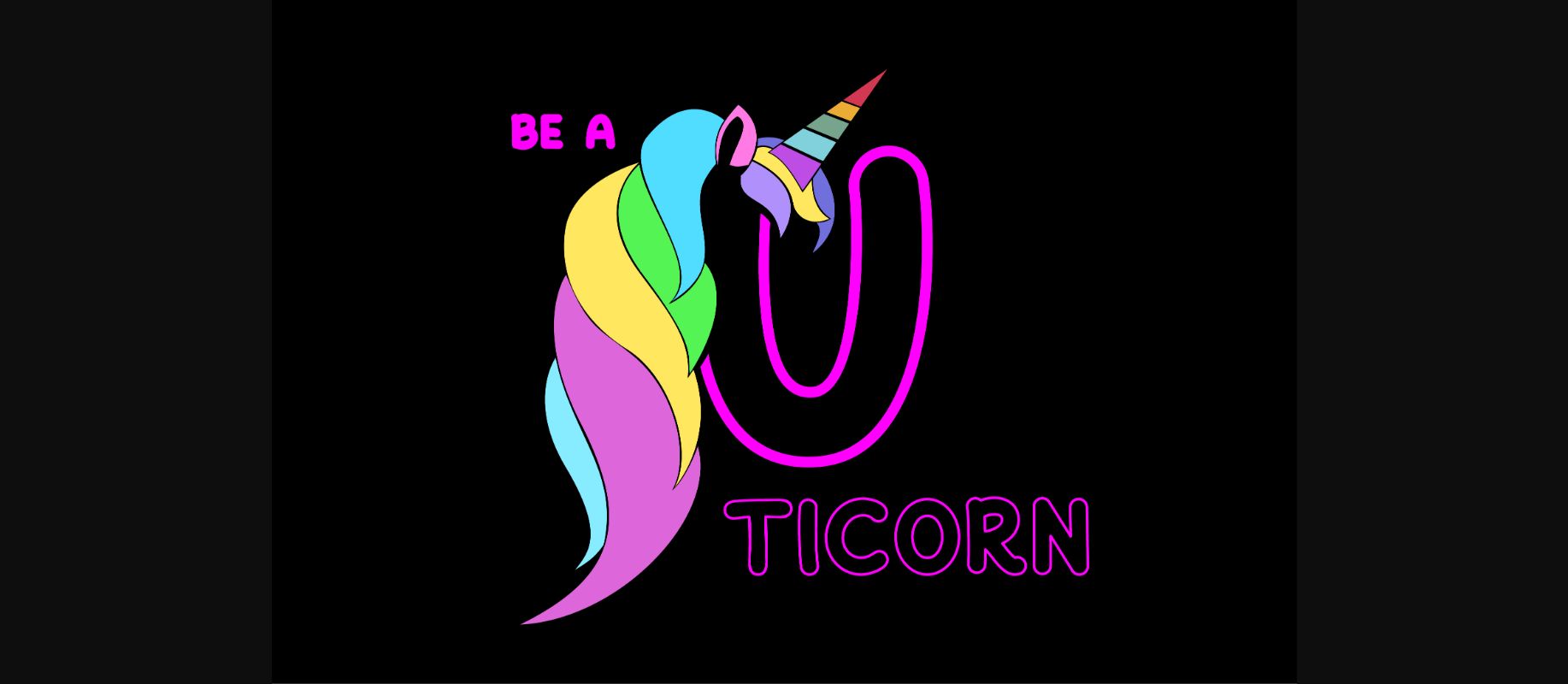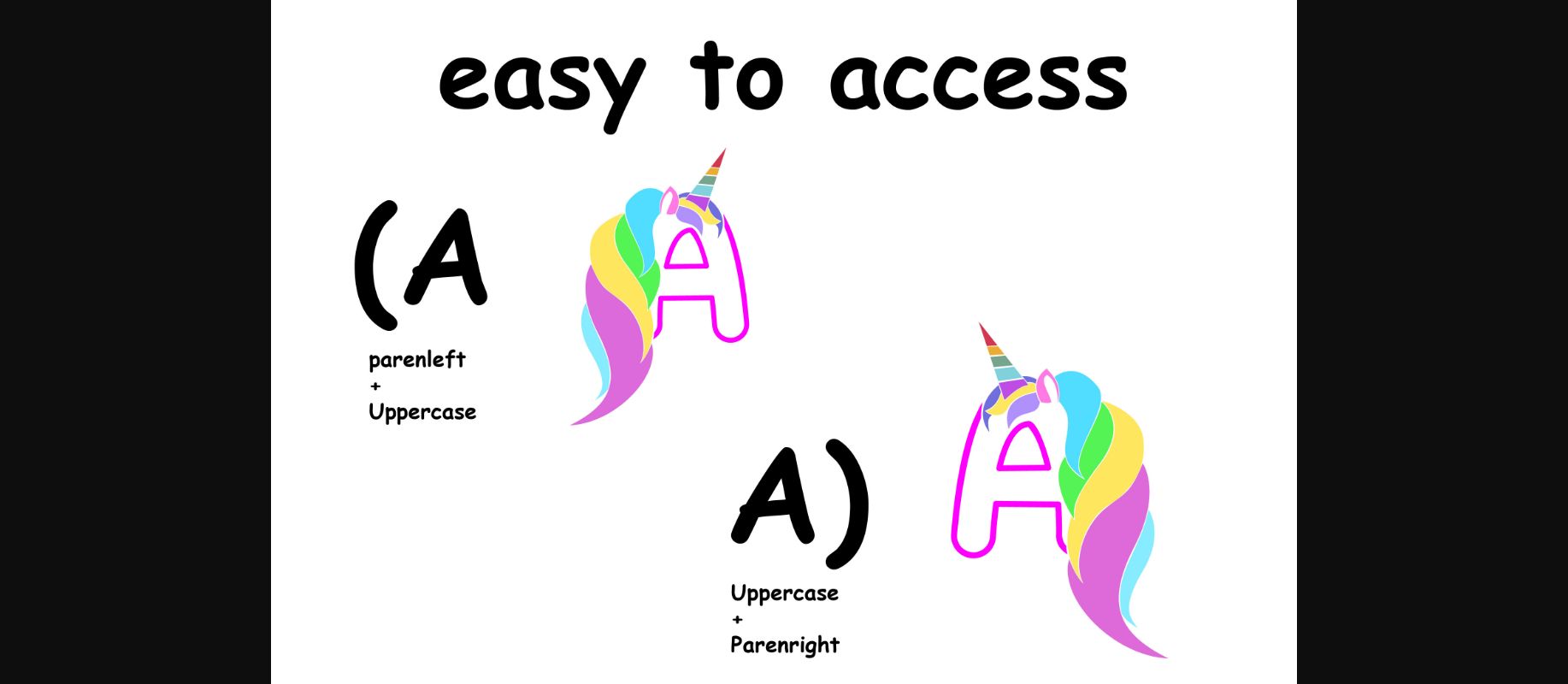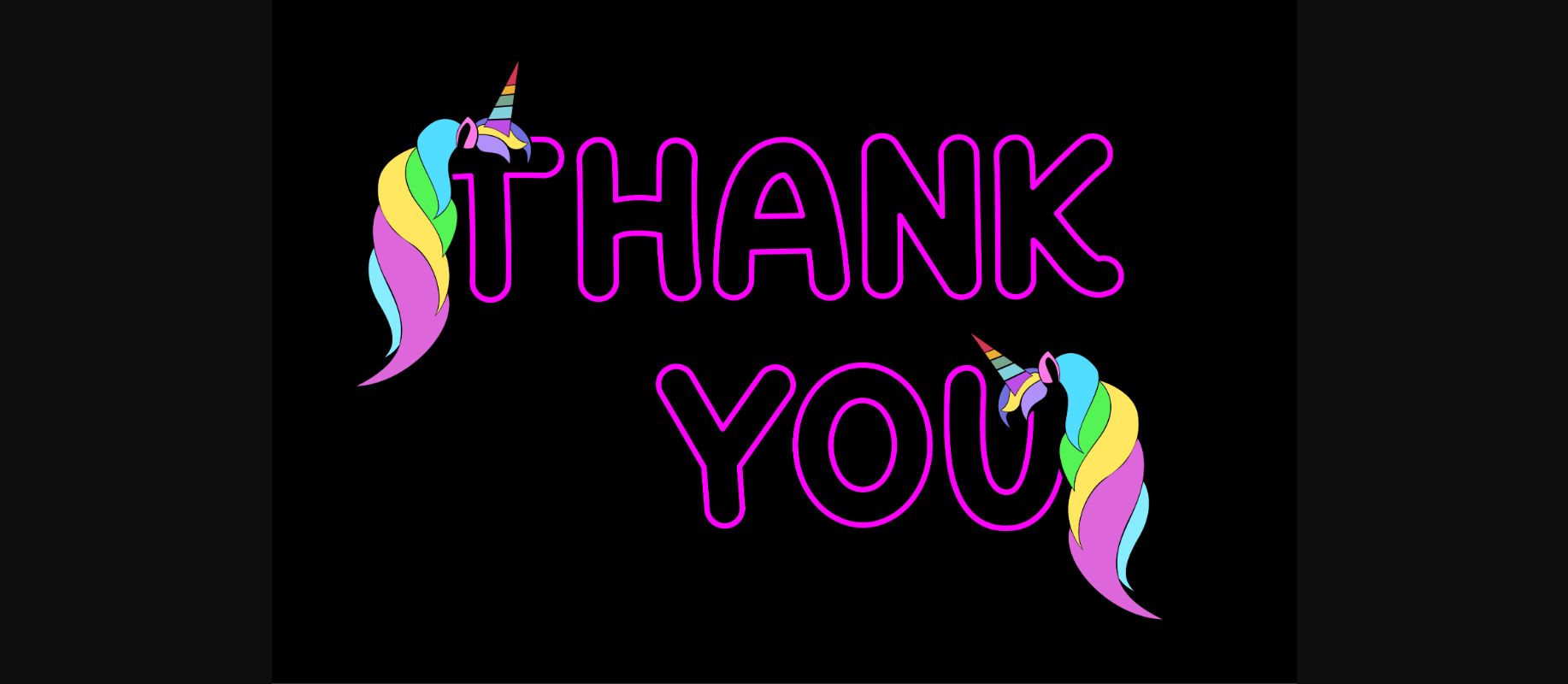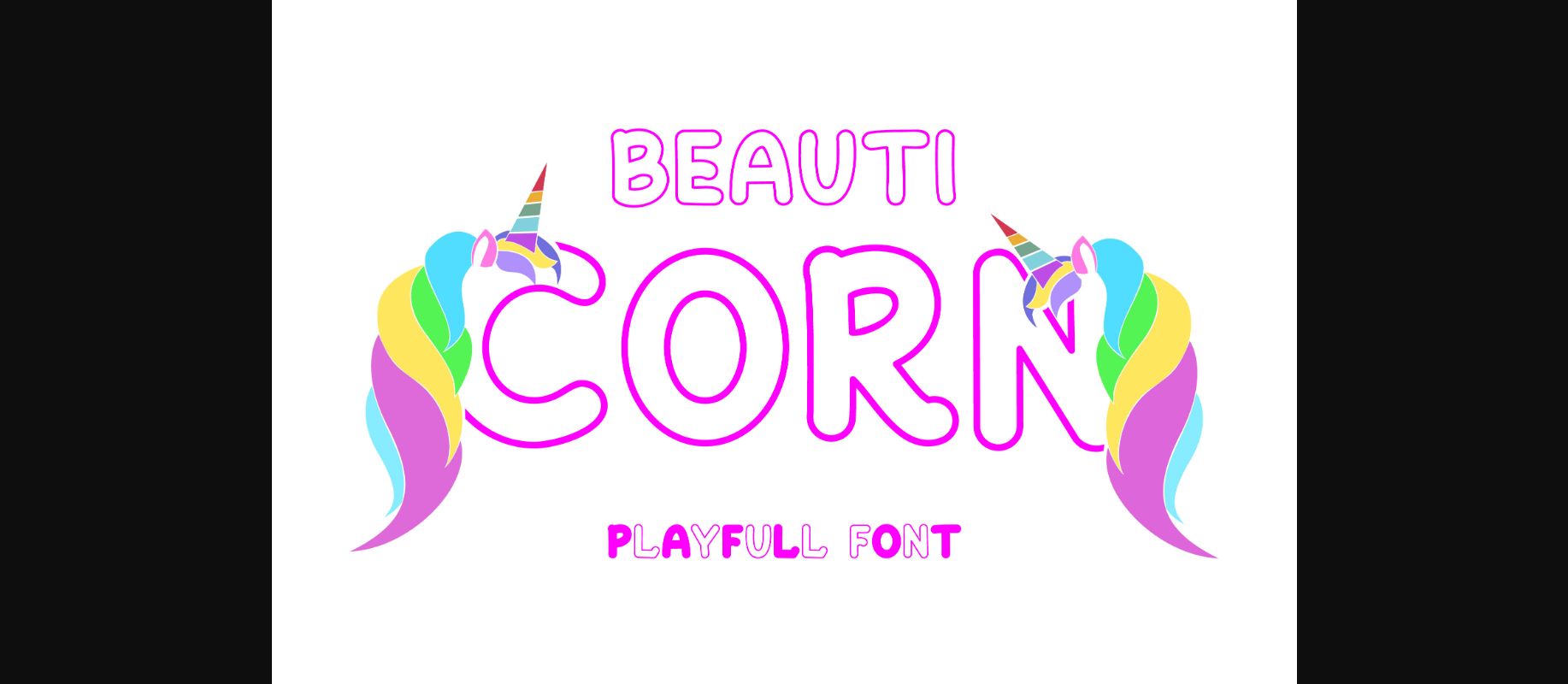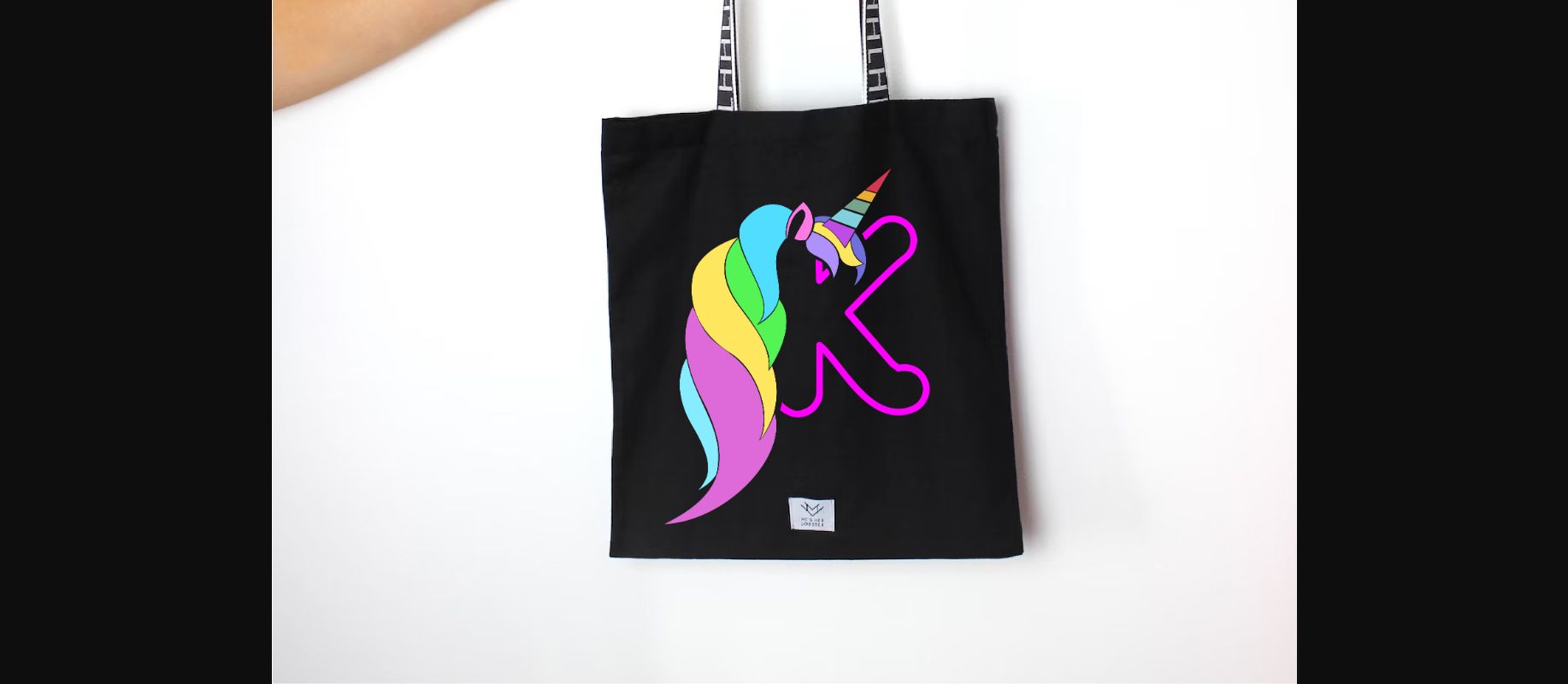
About Beauticorn Font
Beauticorn Decorative Font is a cute decorative font, featuring lovely ornaments.
Fall in love with its authentic feel and use it to create gorgeous stationary art, eye-catching social media posts, and cute greeting cards.